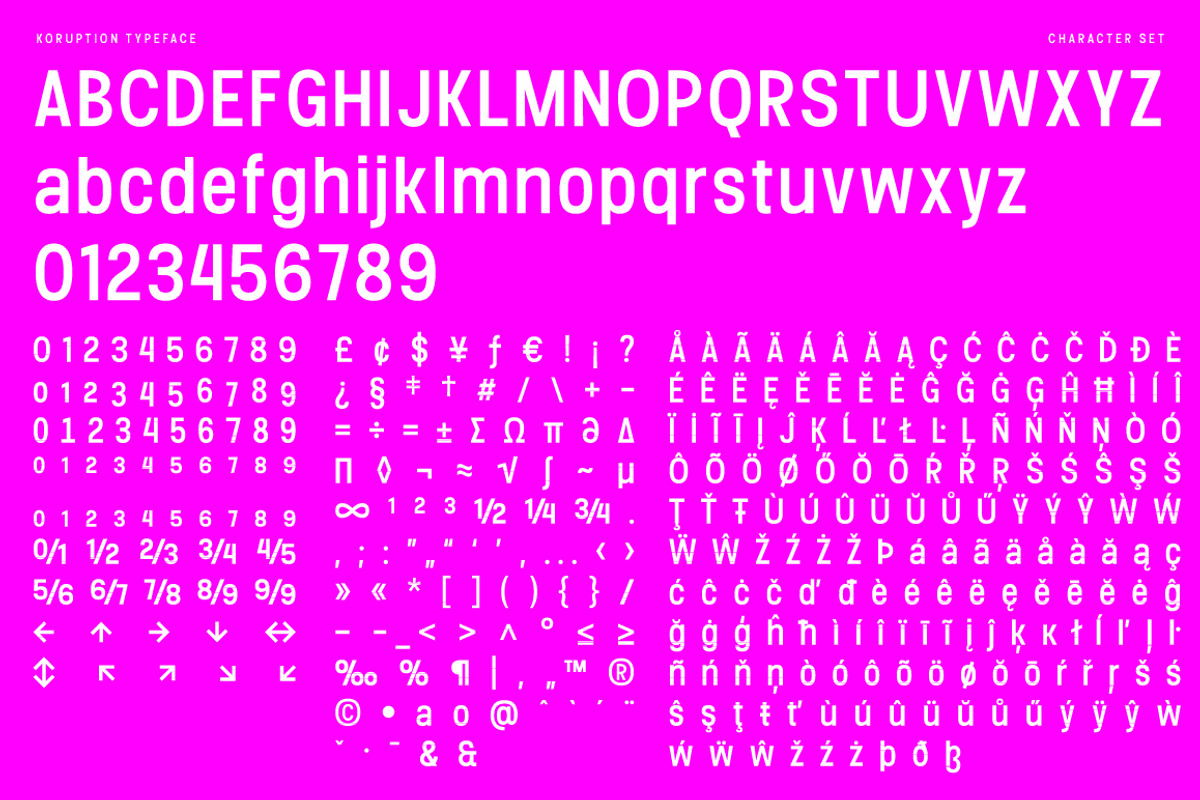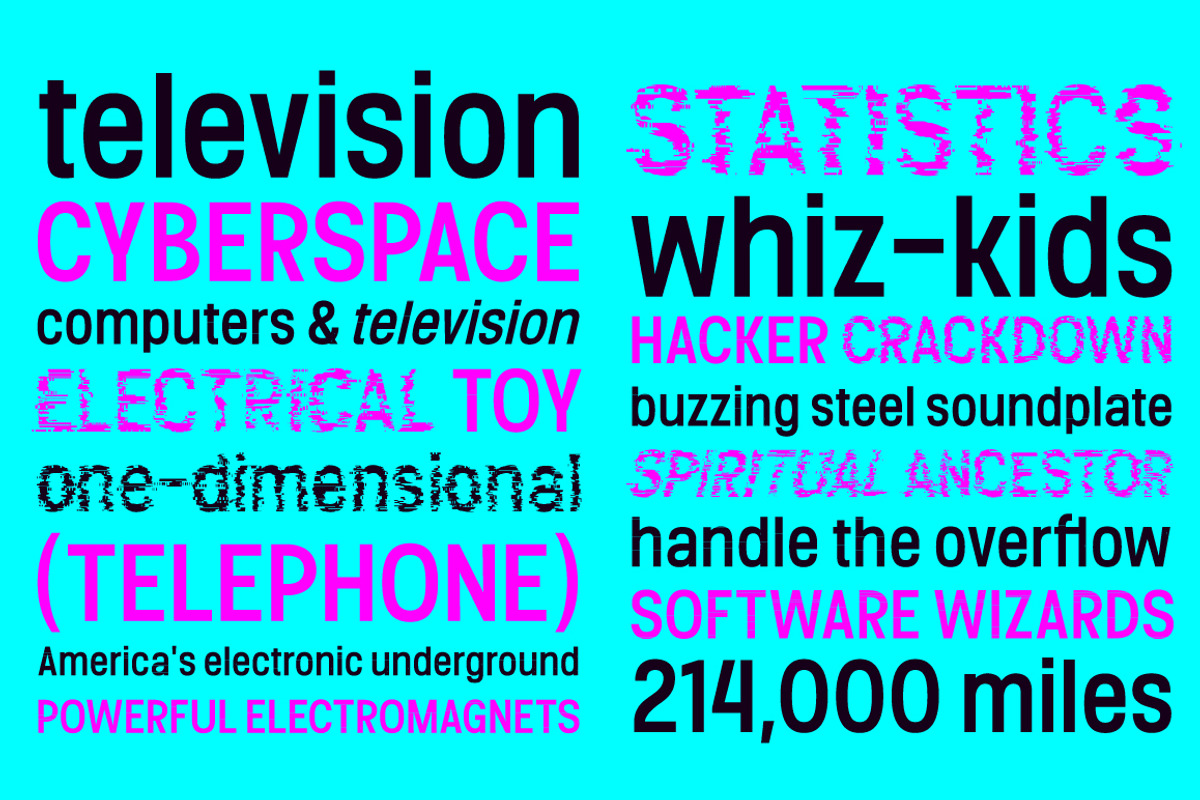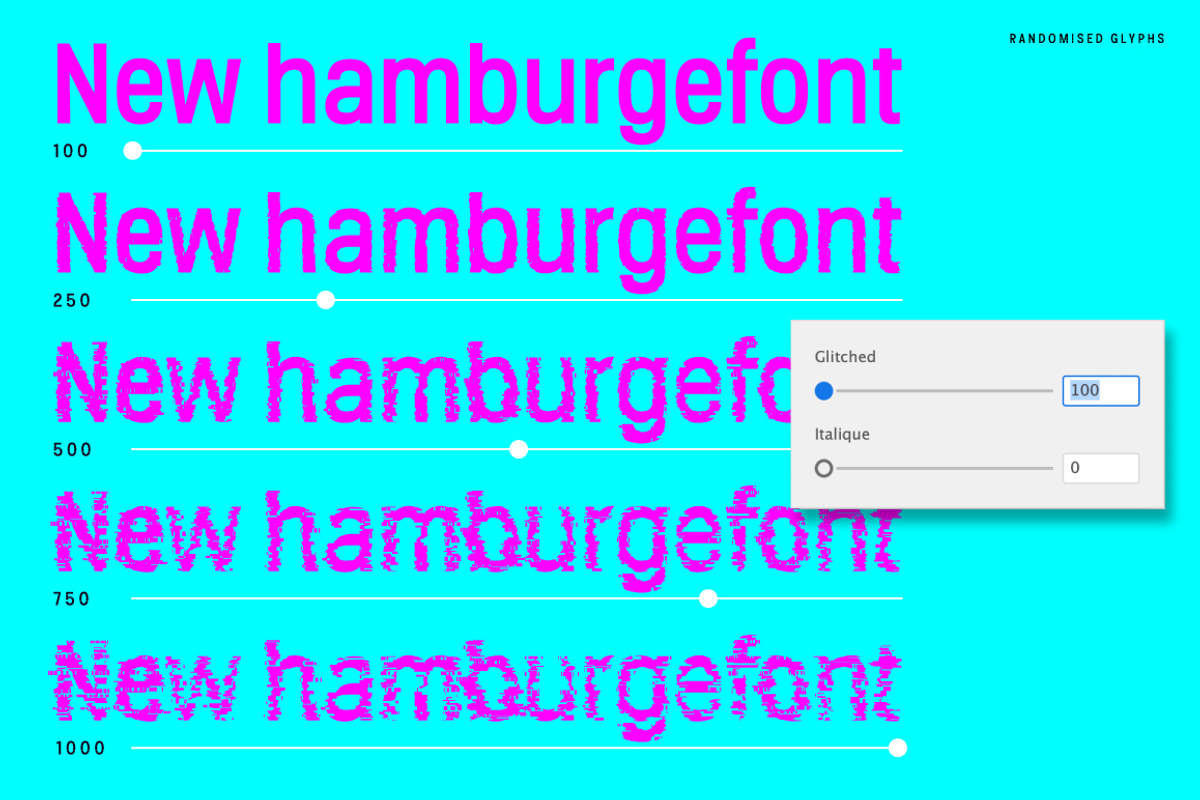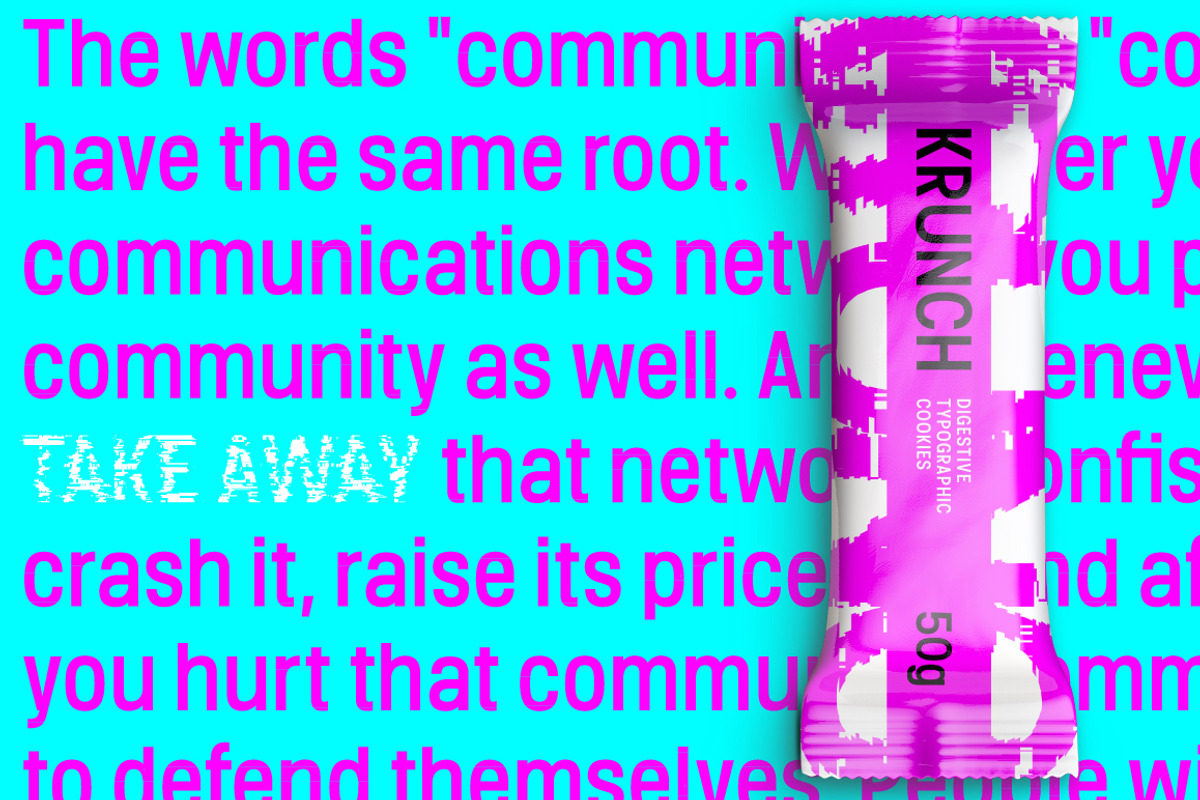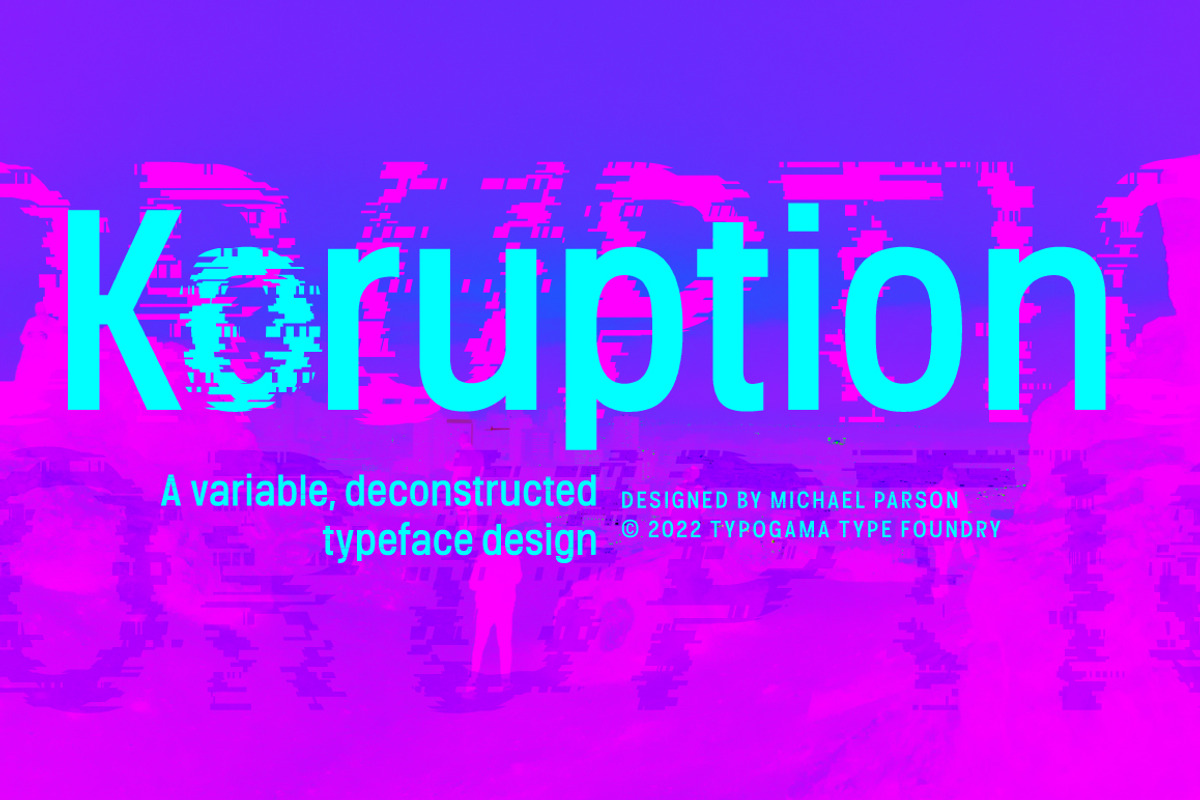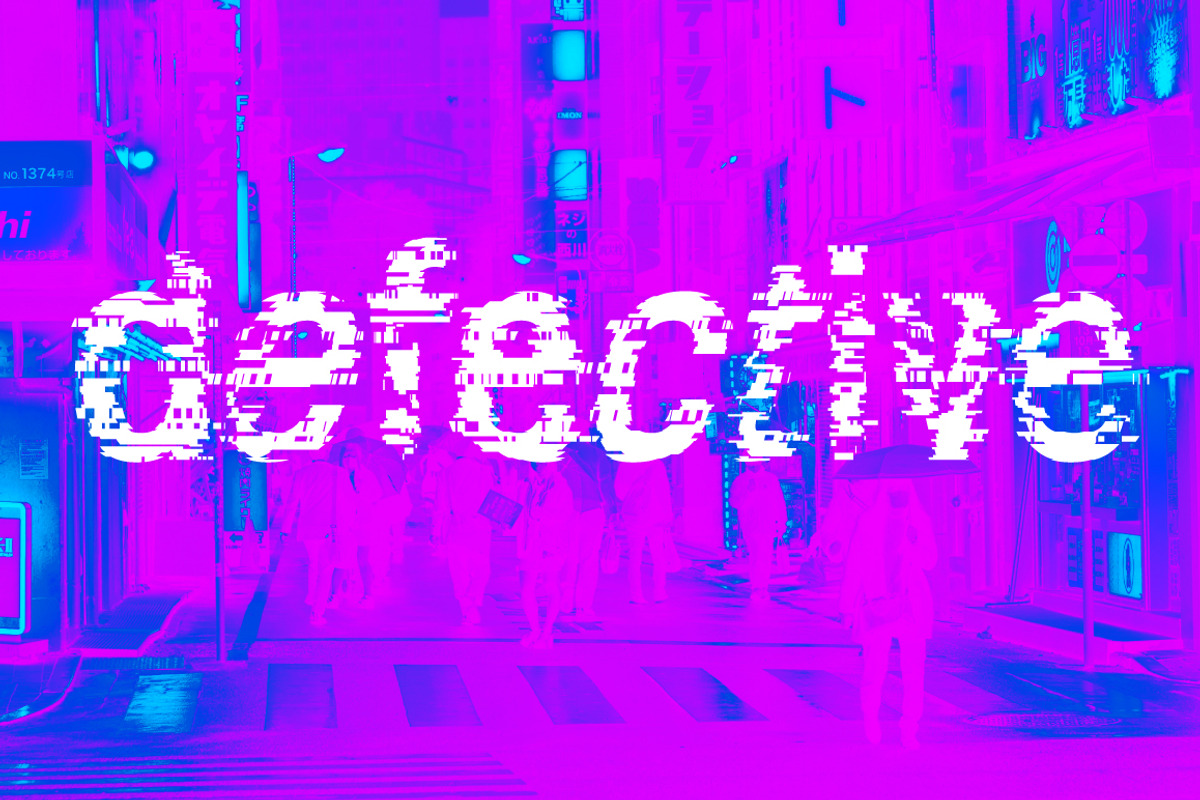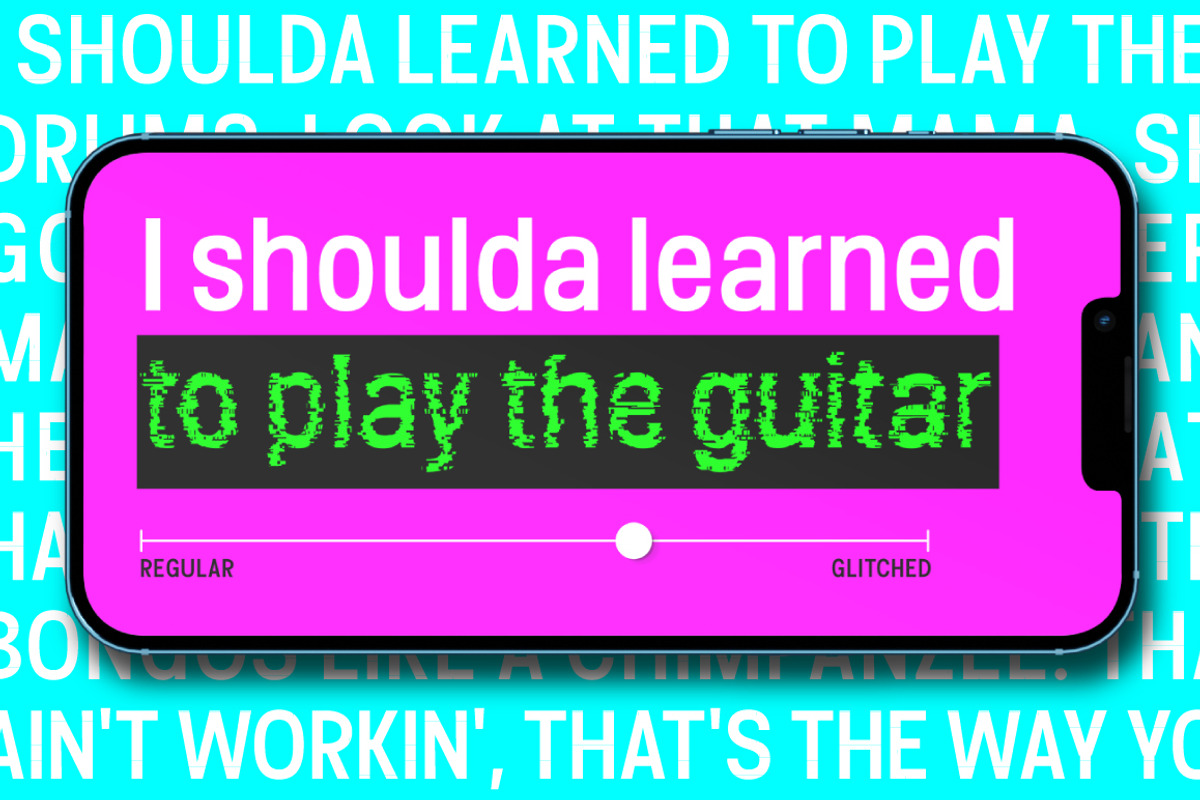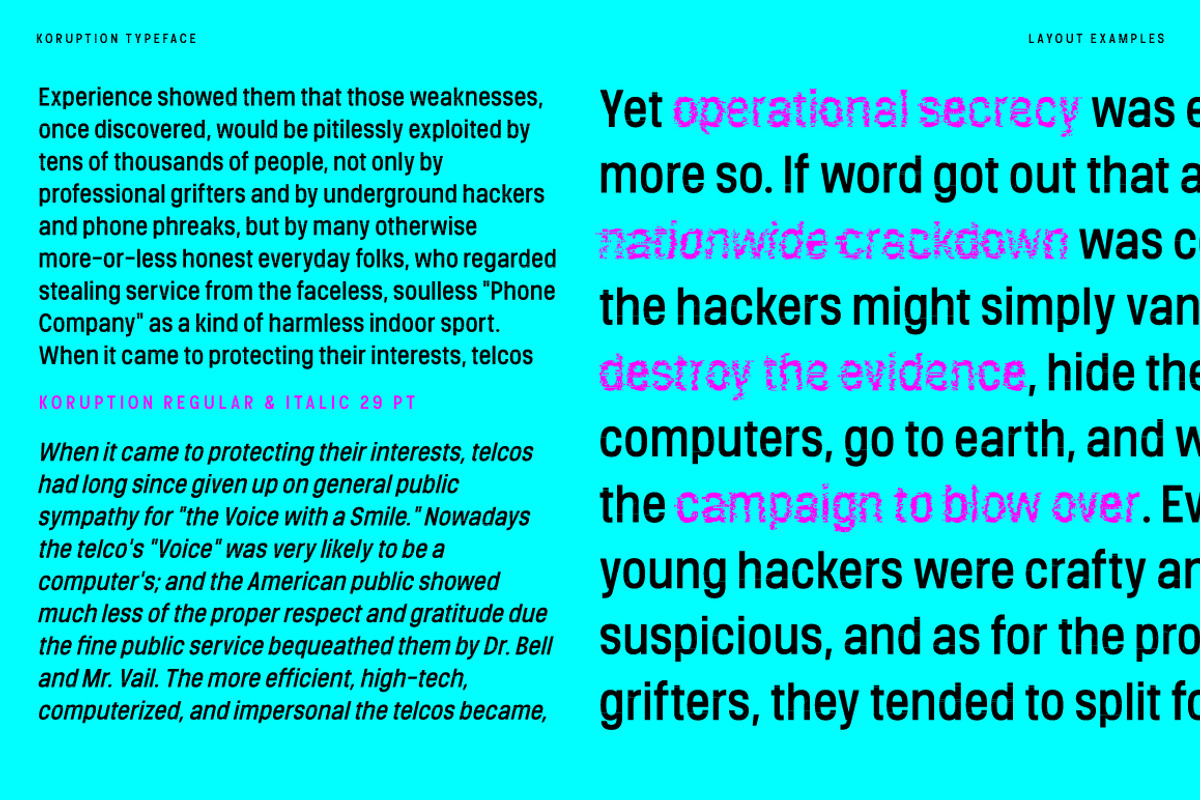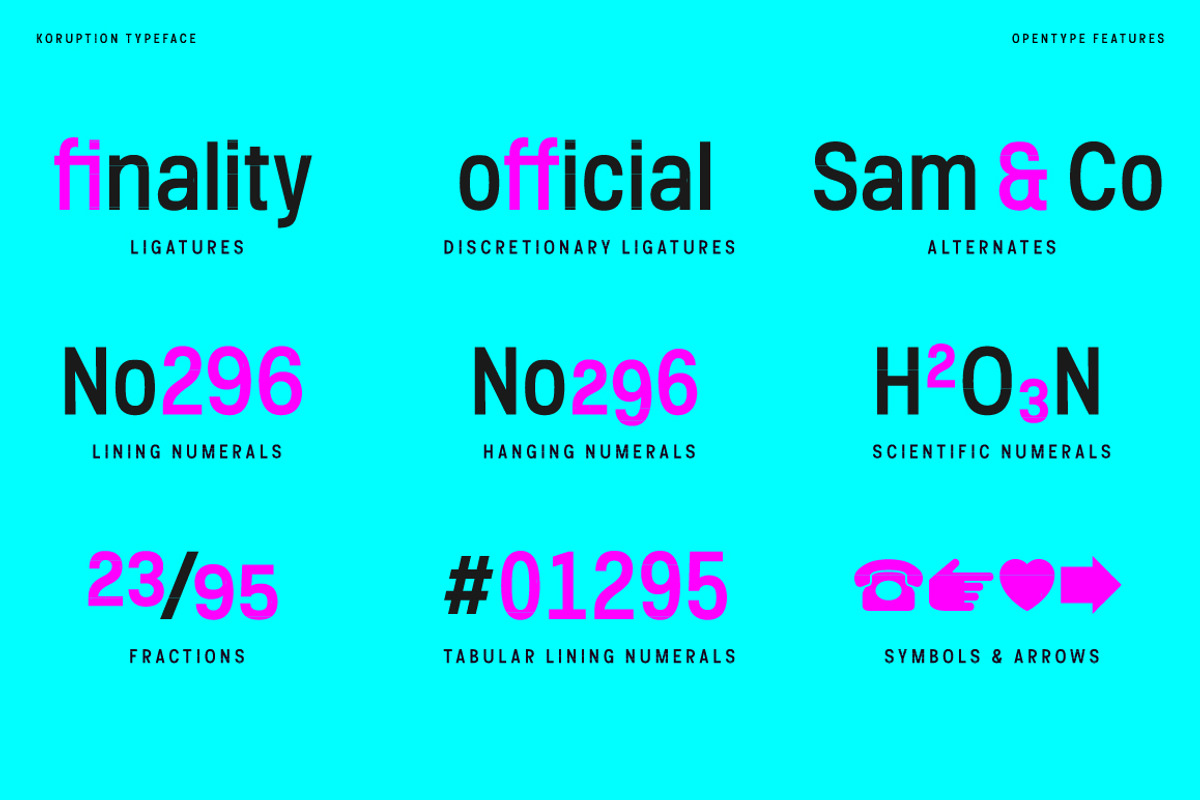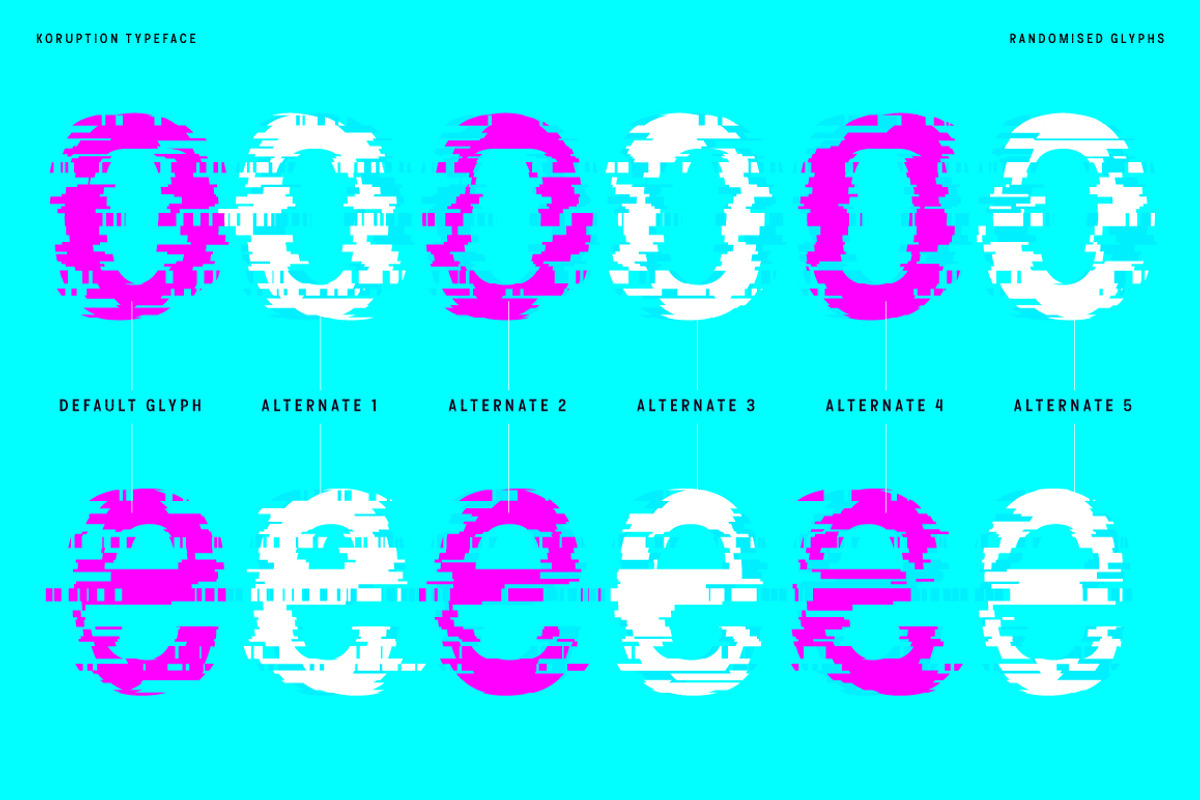
Koruption
Koruption is a neo-grotesque typeface family that allows the user to control the amount of distortion in the letters. Thanks to variable axises, this typeface can range from a clean form to a glitched, deformed letter style. To further the effect, these fonts employ further opentype features to alternate the letters, mimicking the real randomness that can arise from distorted letters.
With a full character set and some additional symbols and arrows, Koruption aims to be a versatile display solution, for use in headlines or logos, but it’s variable axis can also be employed as a real time animation in videos or digital applications.
Weights included: Regular, Glitched, Italic, Glitched Italic, Variable TTF
Opentype features: Ligatures, Discretionary Ligatures, Alternates, Lining numerals, Hanging numerals, Tabular numerals, Scientific numerals, Fractions, Arrows, Symbols